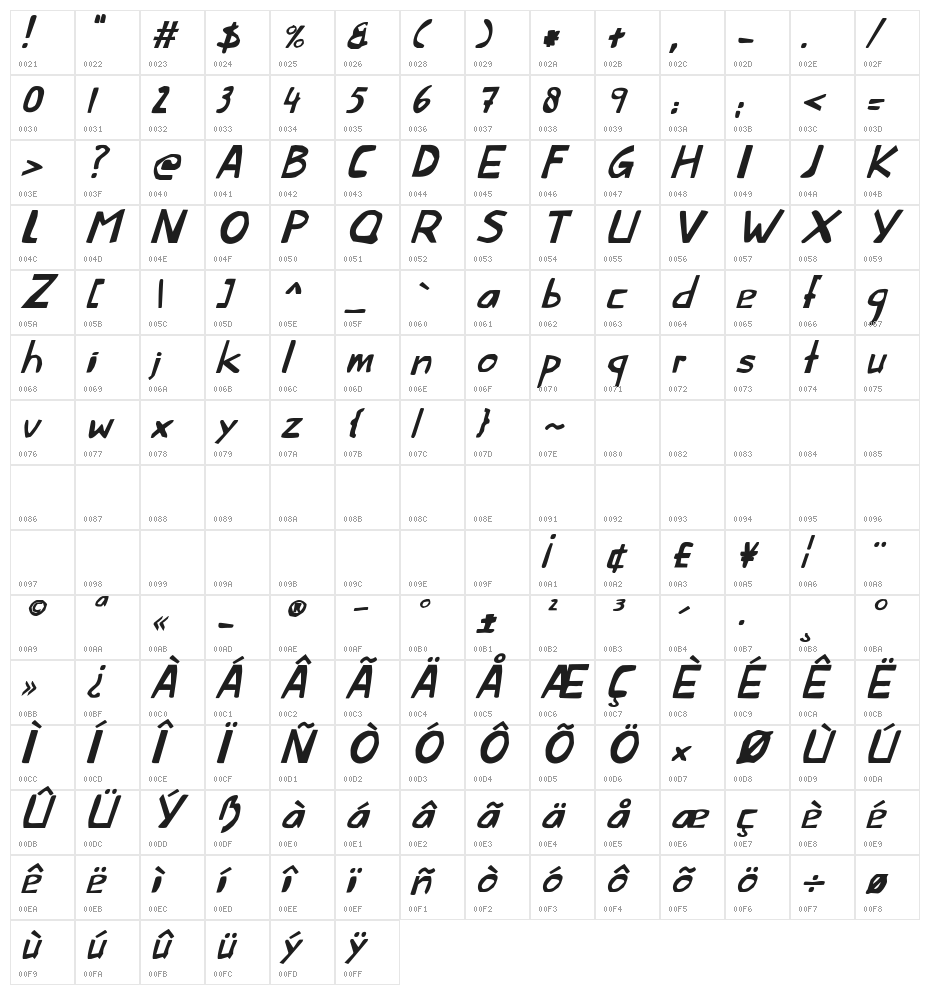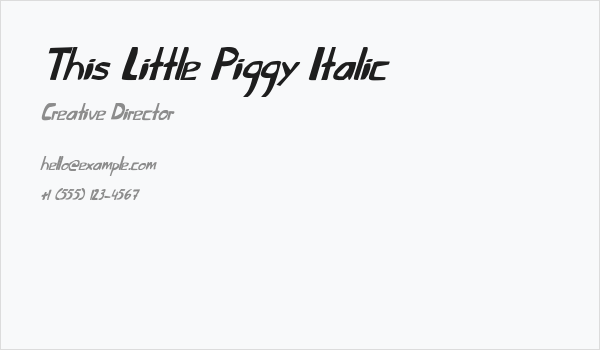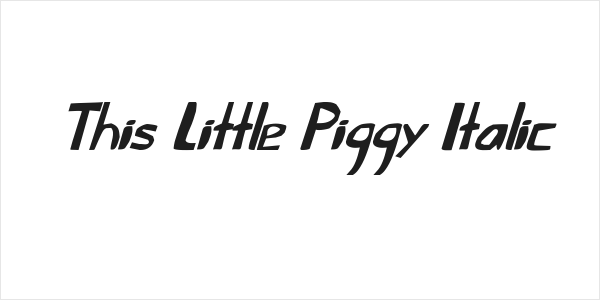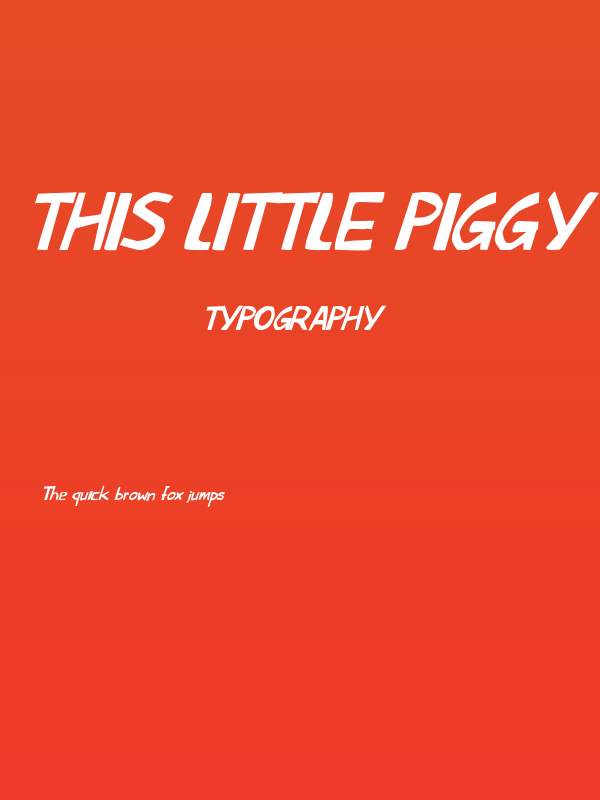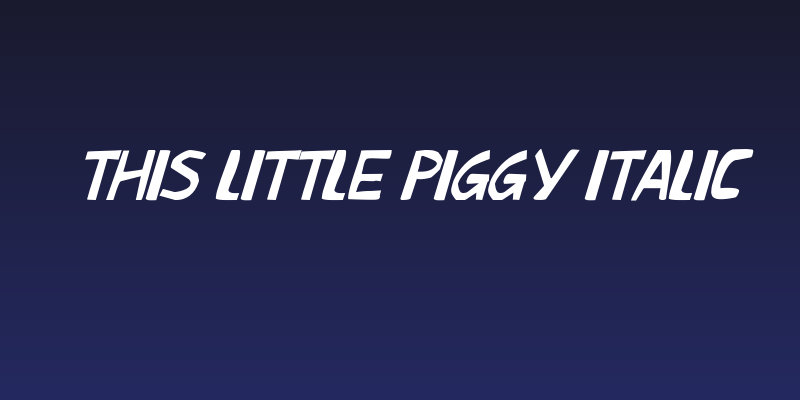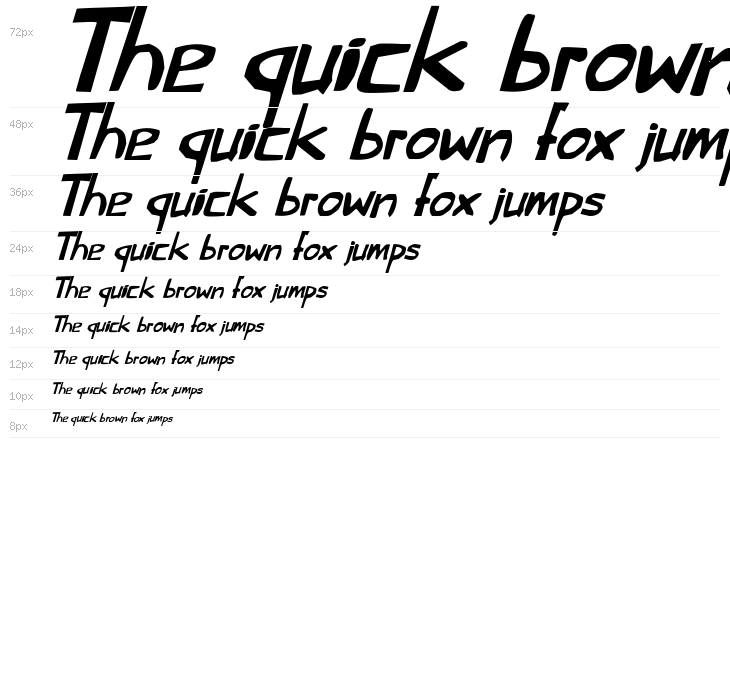
This Little Piggy Italic Font
This Little Piggy Italic Description
This font features a playful and dynamic style with a distinct italic slant, giving it a sense of movement and energy. The characters are bold and slightly condensed, with a unique flair that makes them stand out. Each letter has a hand-drawn quality, with irregular strokes and varying thicknesses that add to its whimsical charm. The uppercase and lowercase letters maintain a consistent style, while the numbers and special characters complement the overall design. This font is ideal for projects that require a fun and informal touch, such as children's books, playful branding, or creative posters.
| Proposed Projects | Children's books, playful branding, creative posters, informal invitations. |